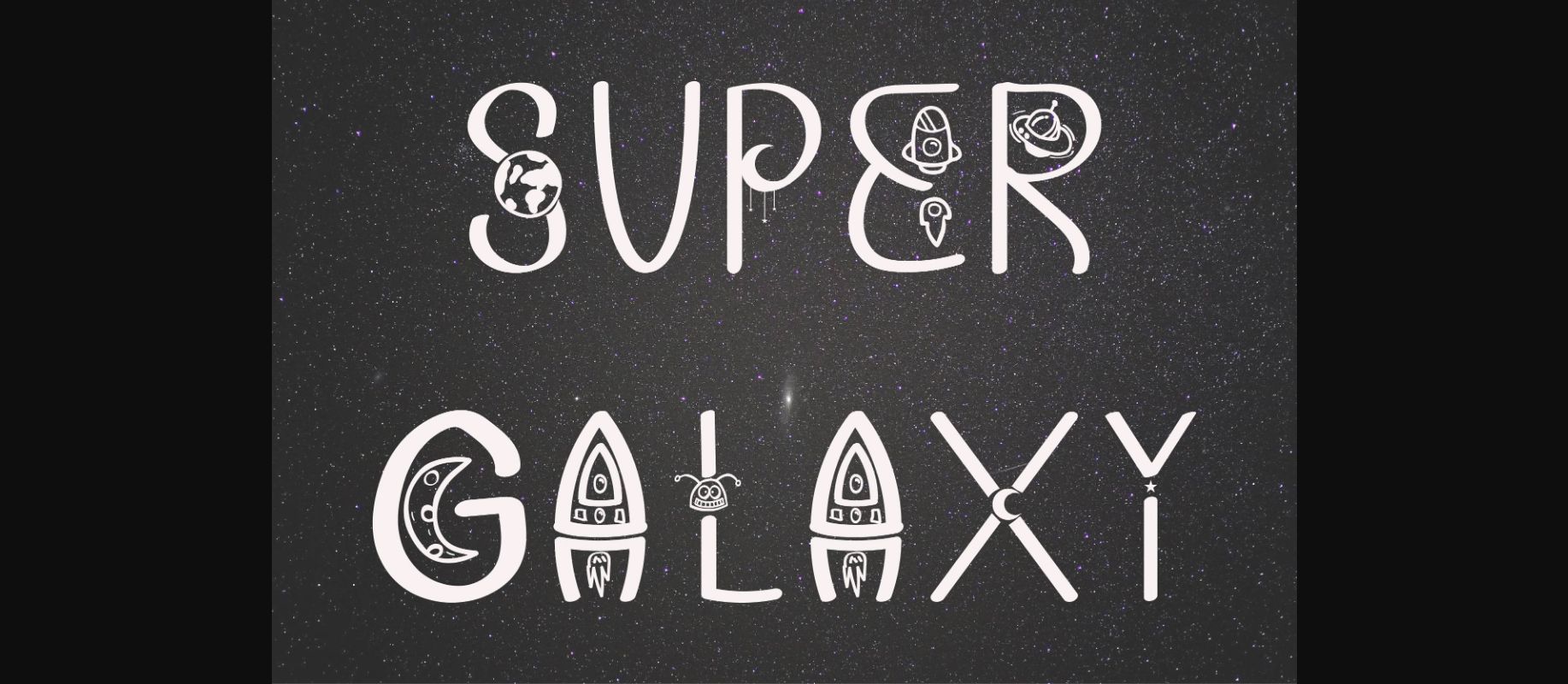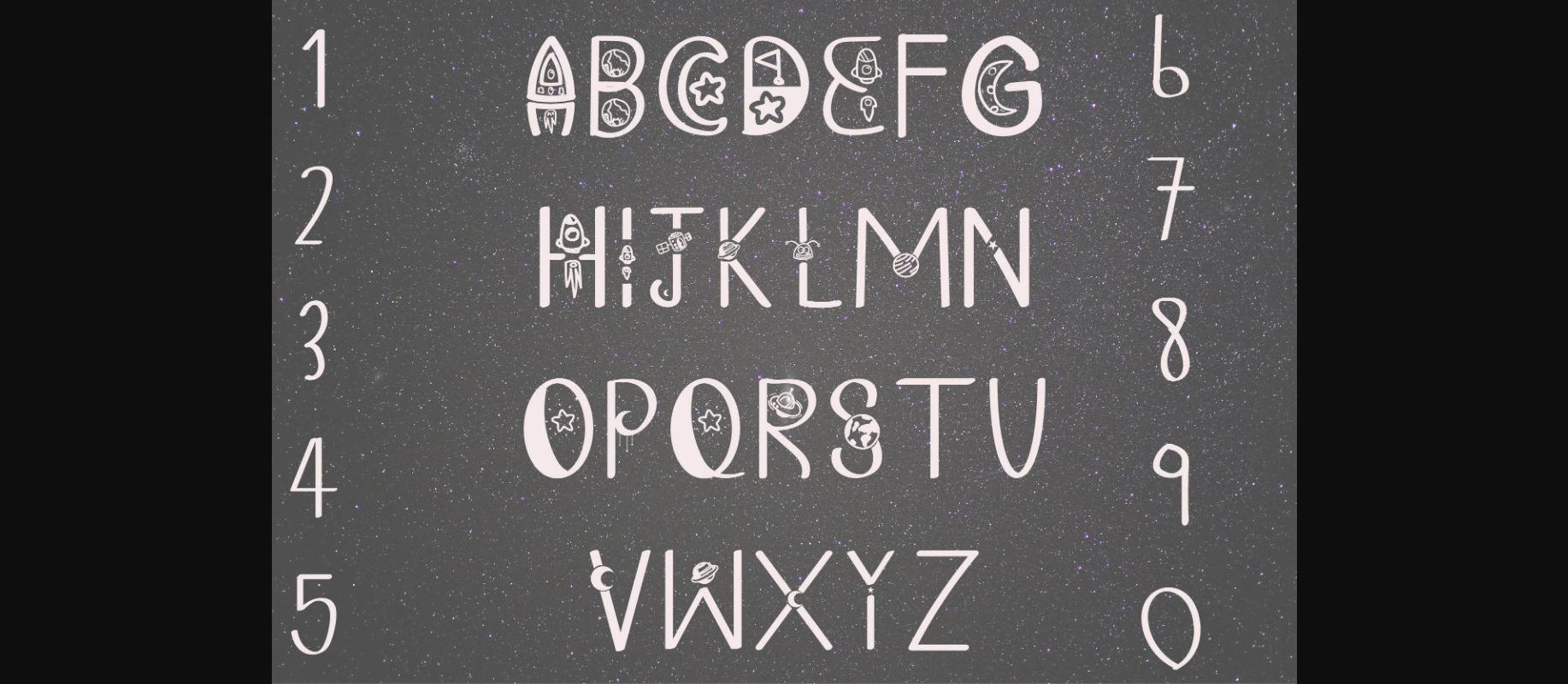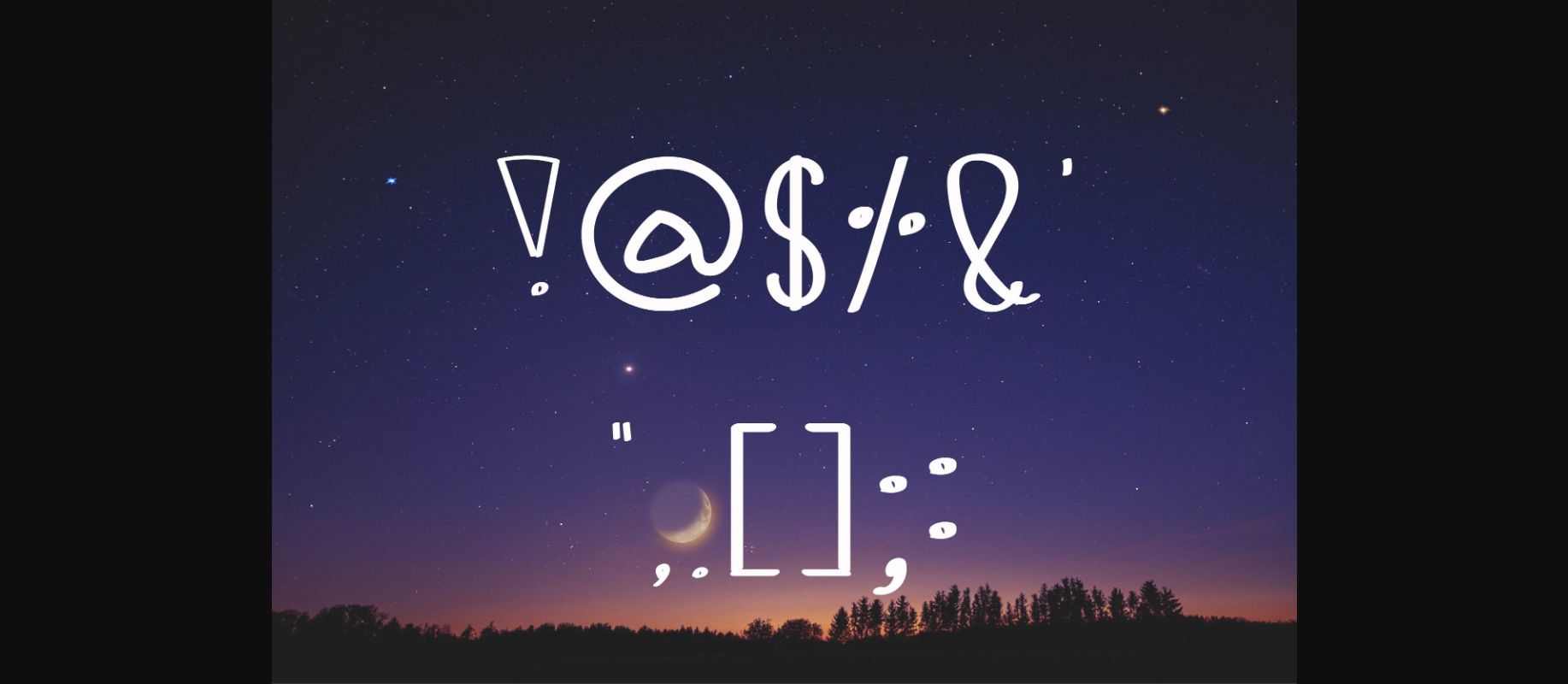
About Super Galaxy Font
Super Galaxy is a cool, original and quirky decorative font. It is perfect for any branding project such as logos, t-shirt printing, creative products, and more.